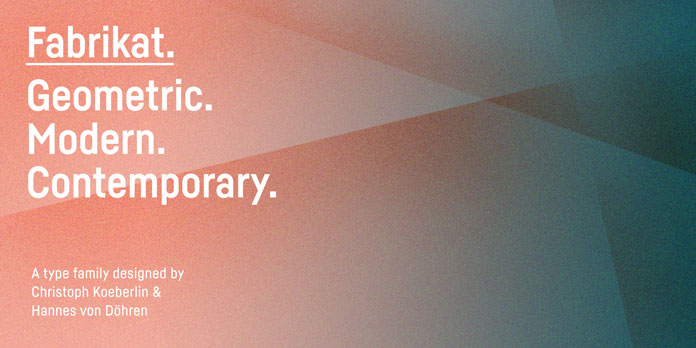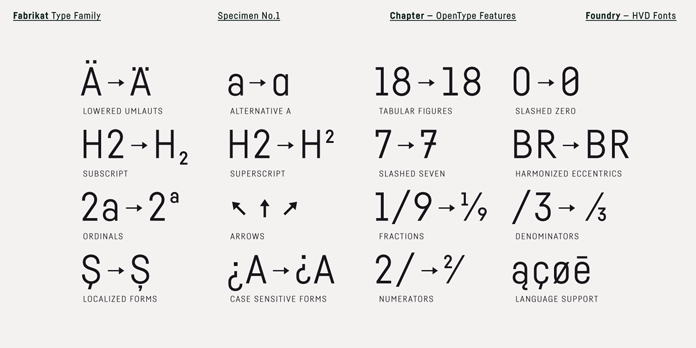
The Fabrikat font family from HVD Fonts, a geometric and modern typeface designed by Christoph Koeberlin and Hannes von Döhren.
Christoph Koeberlin has created this modern sans serif family in 2016 with the kind support of German type designer and founder of foundry HVD Fonts, Hannes von Döhren. The Fabrikat font family comprises seven weights plus matching italic styles. The narrow, geometric style draws inspiration from the plain and precise appearance of German 20th century engineers’ typefaces. More information below.
The diverse weights can be used in both display and text sizes. For better readability, Christoph Koeberlin and Hannes von Döhren have optically corrected all shapes. With plenty of OpenType features, this family is intended for professional typography. The Fabrikat font family is equipped with features such as alternative letters, diverse arrows, fractions, tabular figures, and much more. In addition, the extended character set supports all Central and Eastern European as well as Western European languages. For further information, just follow the link below.